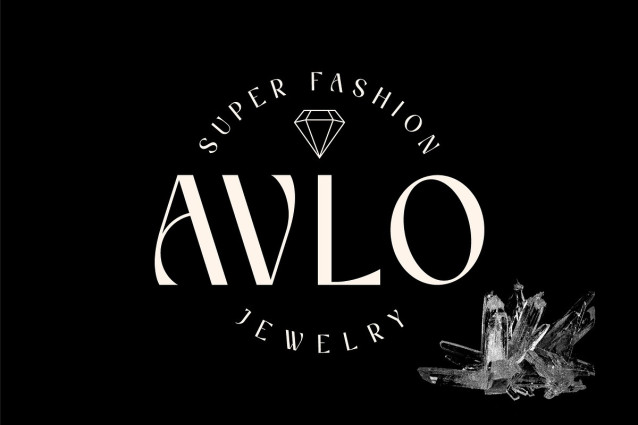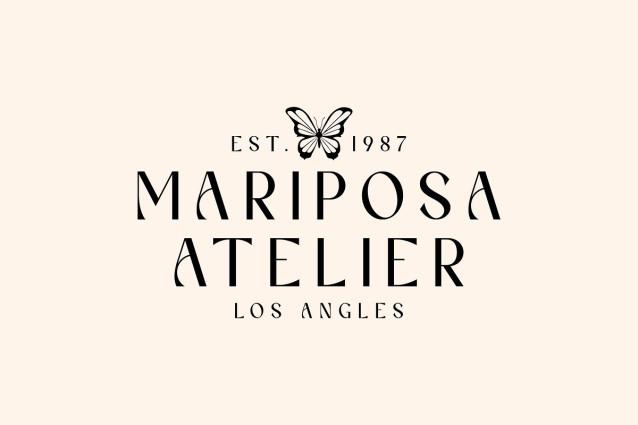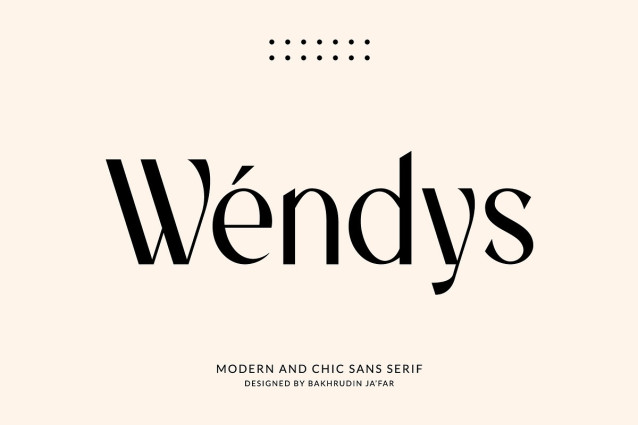
Wendys Font
Wendys Font | Modern and elegant Sans Serif, a modern and stylish style with unique strokes, very easy to combine with other fonts, will be very useful for designers creating logos and layout designs.